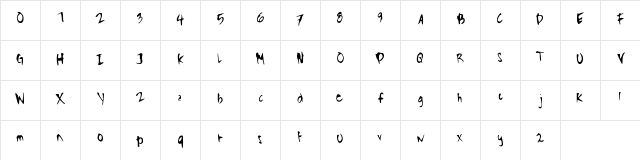
Bustamante_font Regular
Design Context for Bustamante_font
Bustamante_font is a composed and adaptable typeface that performs quietly and consistently across a wide range of design contexts.